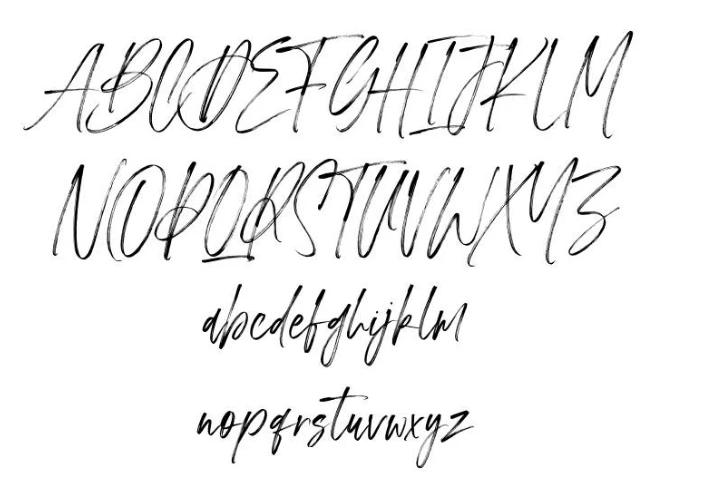
Black Animal Font is a new script and brush font that is both attractive and functional. Sizimon created the font and shared it. Black Animal is a brush-style font that was created by hand. Making the design of a product is a simple process that can save you time. It has a complete set of lower and capital letters and a significant number of punctuation marks, digits, and multilingual support. Black Animal OTF, Black Animal TTF, and Black Animal Swash OTF are available font formats.
This font is a great choice for logos, name tags, handwritten phrases, product packaging, retail, social media, and greeting cards. You may also create a t-shirt and other product designs. You may also use the font to create some lovely natural backgrounds.